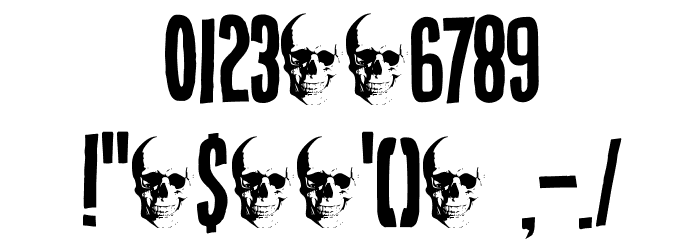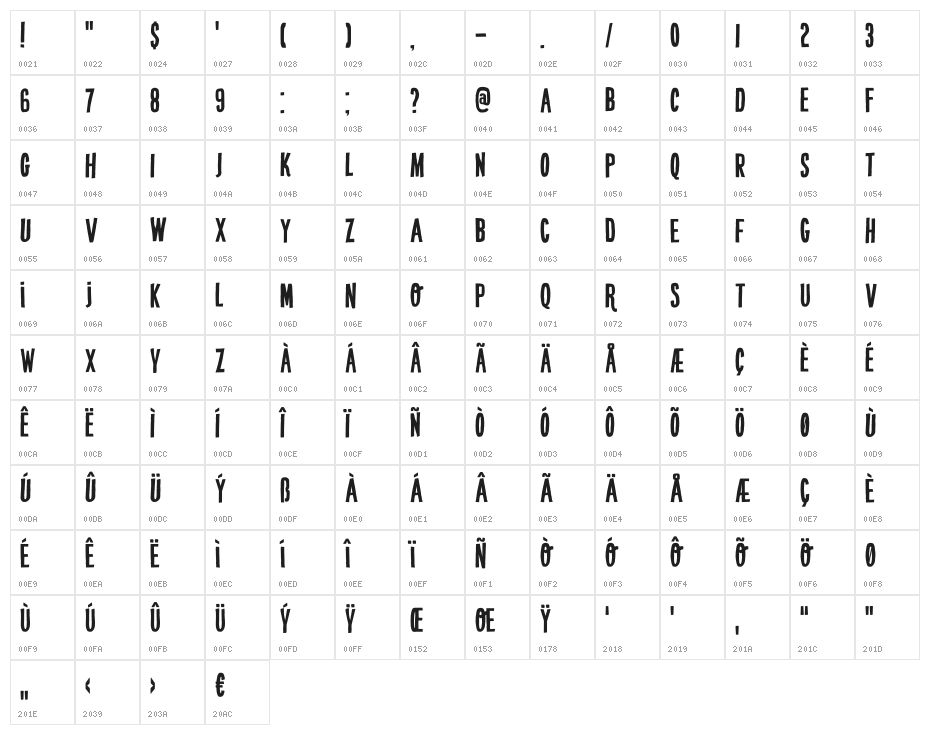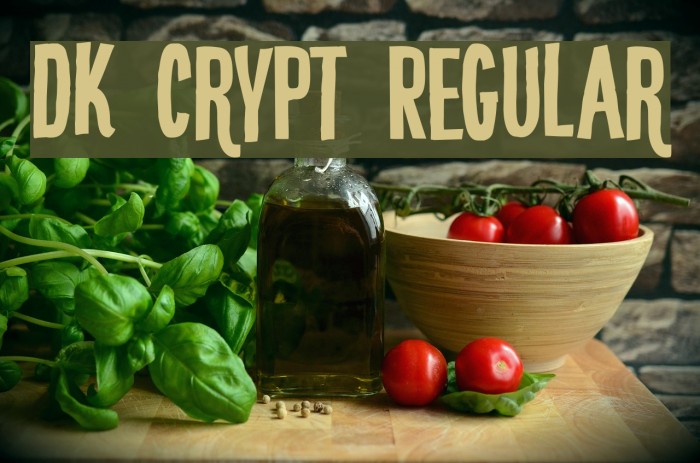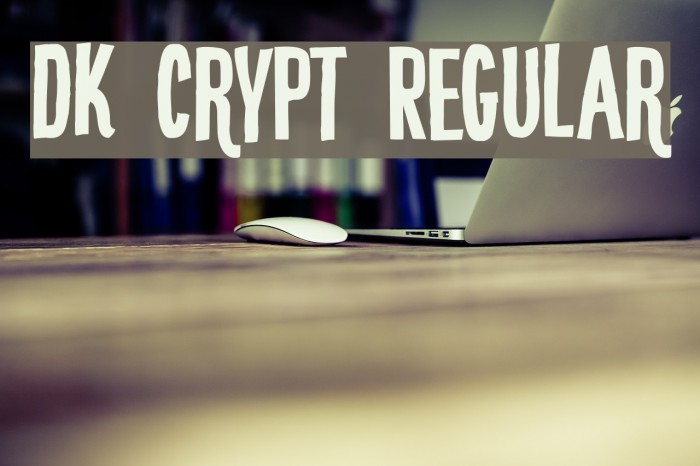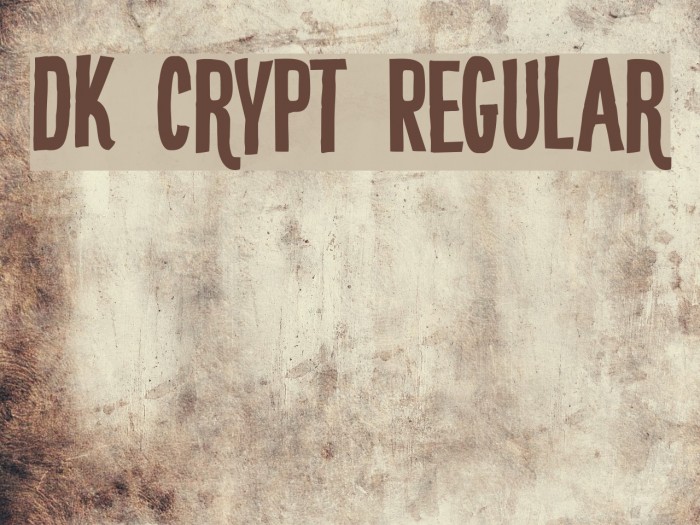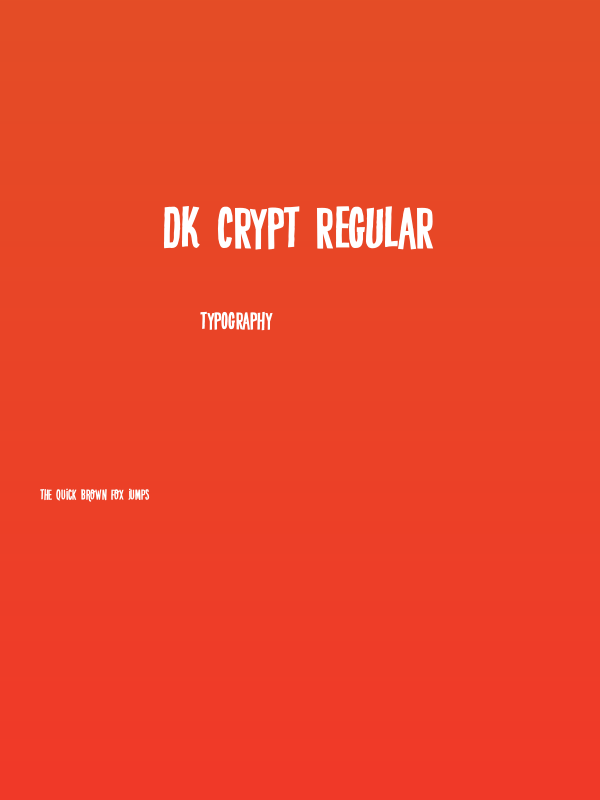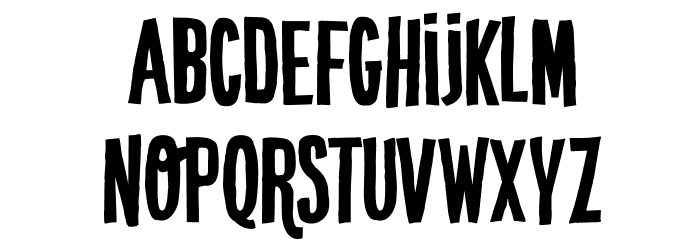
DK Crypt Regular Font
DK Crypt Regular Description
This font features a bold and dramatic style with a distinctive gothic influence. The uppercase and lowercase letters are elongated and slightly irregular, giving them a hand-drawn appearance. The numbers and special characters incorporate unique skull motifs, adding a touch of edginess and horror. The overall design is striking and attention-grabbing, making it suitable for projects that require a bold statement. The font's uneven strokes and varying thicknesses contribute to its dynamic and energetic feel, while the decorative elements enhance its visual impact.
| Overall Style | Gothic, Decorative |
| Proposed Projects | Ideal for horror-themed posters, Halloween invitations, edgy branding, and album covers. |